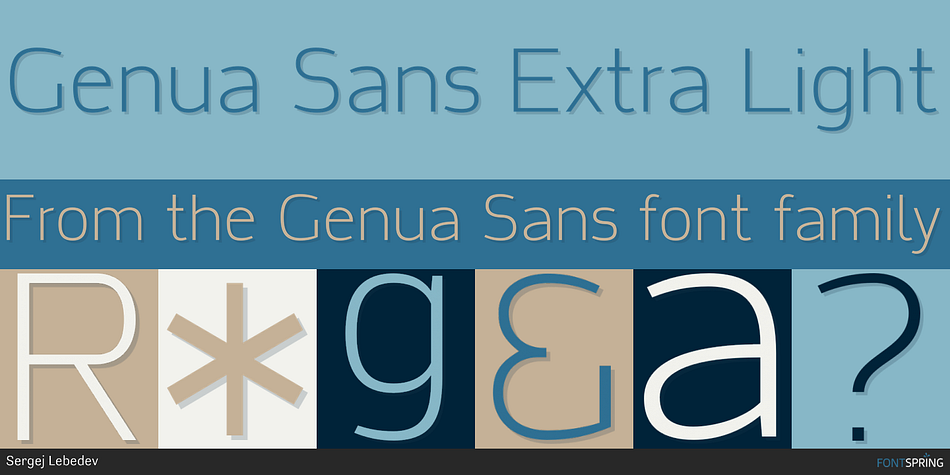
Genua Sans Extra Light
Genua Sans is a sans serif font family. This typeface has fourteen styles and was published by Sergej Lebedev.
Genua Sans, a modern font family, consists of 7 weights (Thin, Extra Light, Light, Book, Regular, Medium, Bold) and Italic for each format. The font family “Genua Sans” was named after the beautiful Genoa city, located in the Gulf of Genoa in front of the Ligurian Sea in Italy.
Genua Sans is the perfect font family for text, headlines, corporate design, communication design, graphic design, branding, packaging, publishing and web use. The each font contains a set of 1.040 characters - supporting 212 different languages. The Genua Sans have 22 OpenType Futures and include a large number of stylistic alternate characters.